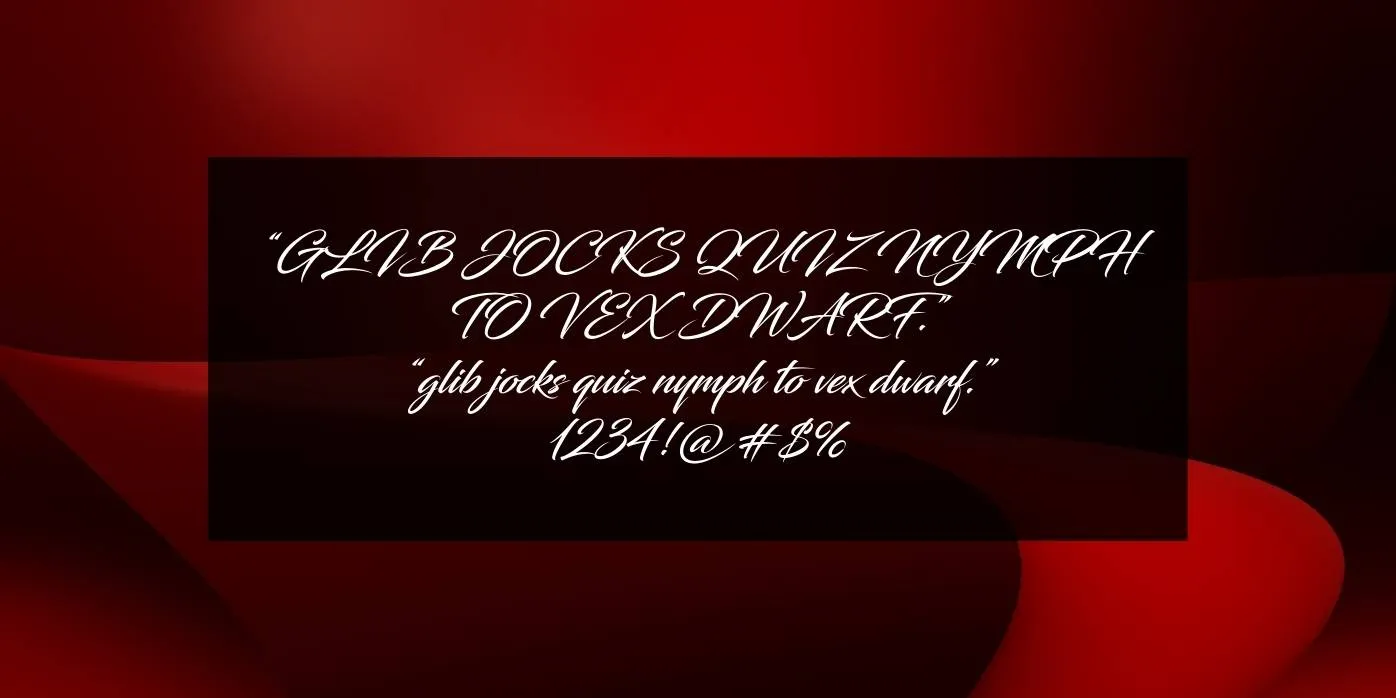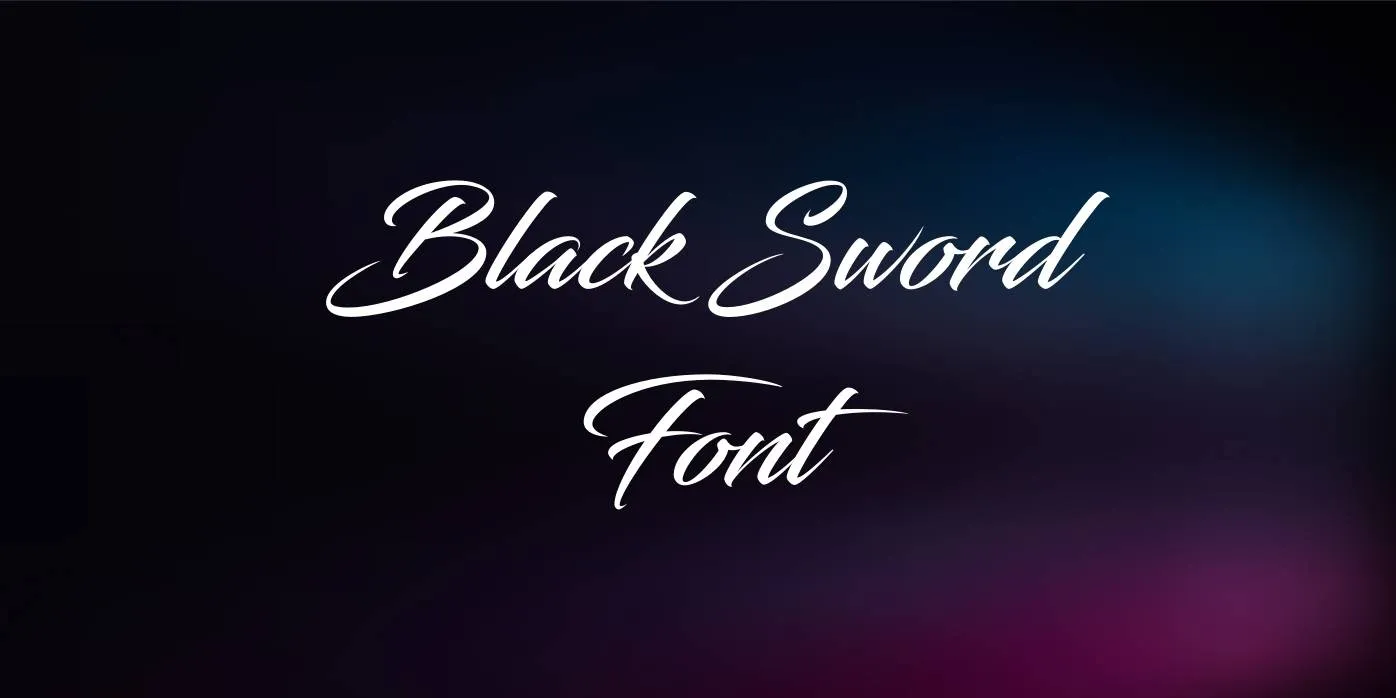
Blacksword Font
In this post, we introduce a modern typeface known as Black Sword Font. This typeface belongs to the script family. This typeface was designed by Youssef Habchi. This typeface belongs to the script family.  The main features of this typeface are its high x-height, short descenders, and wide apertures.
This typeface is best suited for headlines, posters, and titles. This typeface consists of unique Styles and more than 100 glyphs. It includes support for multiple languages including Latin, Cyrillic, and Greek. If you are looking for a classic and elegant font for your next project, then this typeface is classic.